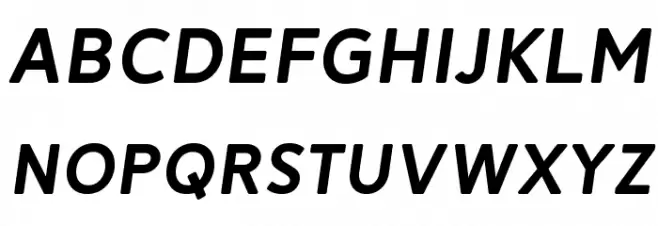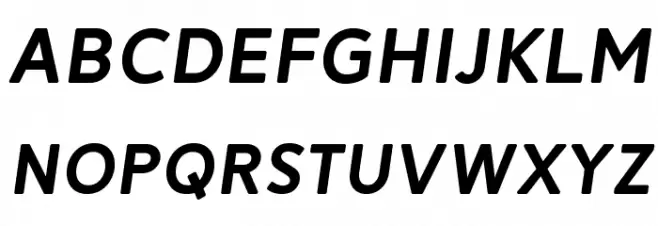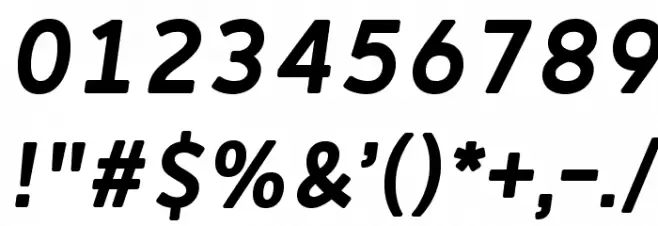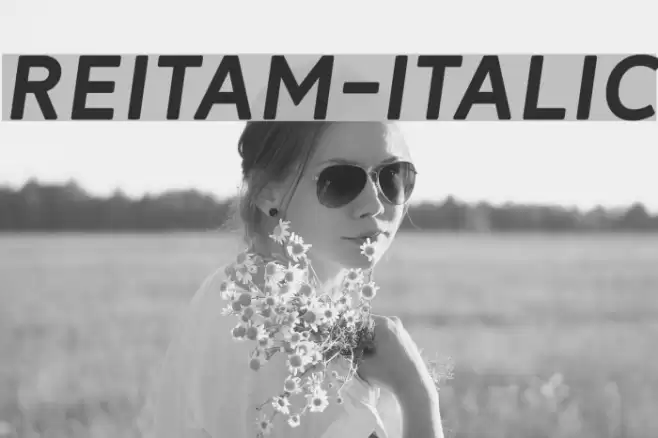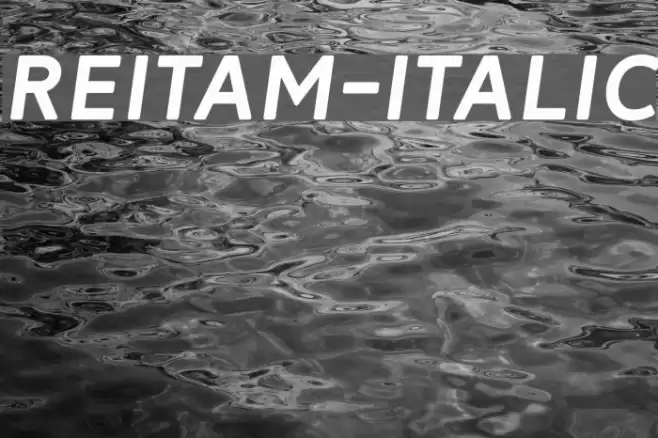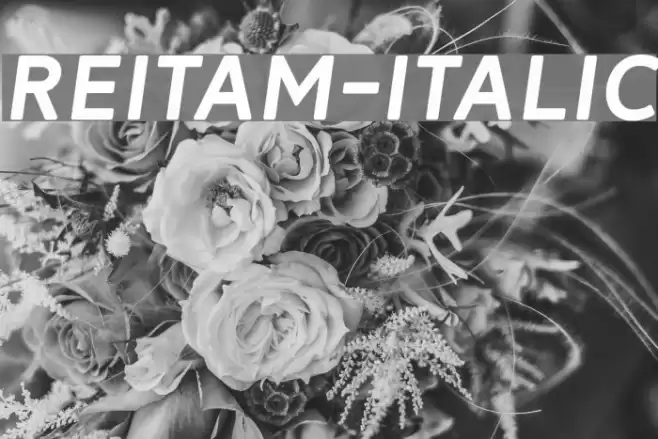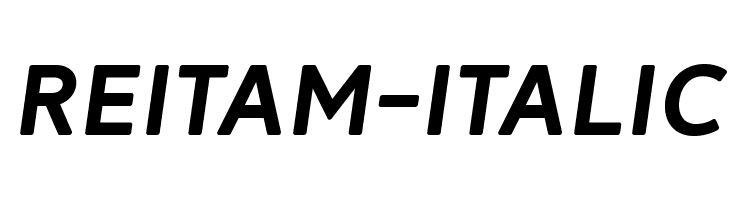
Reitam-Italic
This font features a clean and modern sans-serif style with a slight italic slant, giving it a dynamic and forward-moving appearance. The characters are well-proportioned with a uniform stroke width, contributing to a balanced and harmonious look. The uppercase and lowercase letters maintain a consistent style, ensuring readability and versatility. The numerals are clear and distinct, making them suitable for various applications. Special characters are included, enhancing the font's utility for a wide range of design projects. The overall design is sleek and contemporary, making it ideal for modern branding and digital interfaces.
A modern, italic sans-serif font with clean lines and balanced proportions.
- Proposed Projects: Ideal for branding, digital interfaces, advertising, and editorial design.